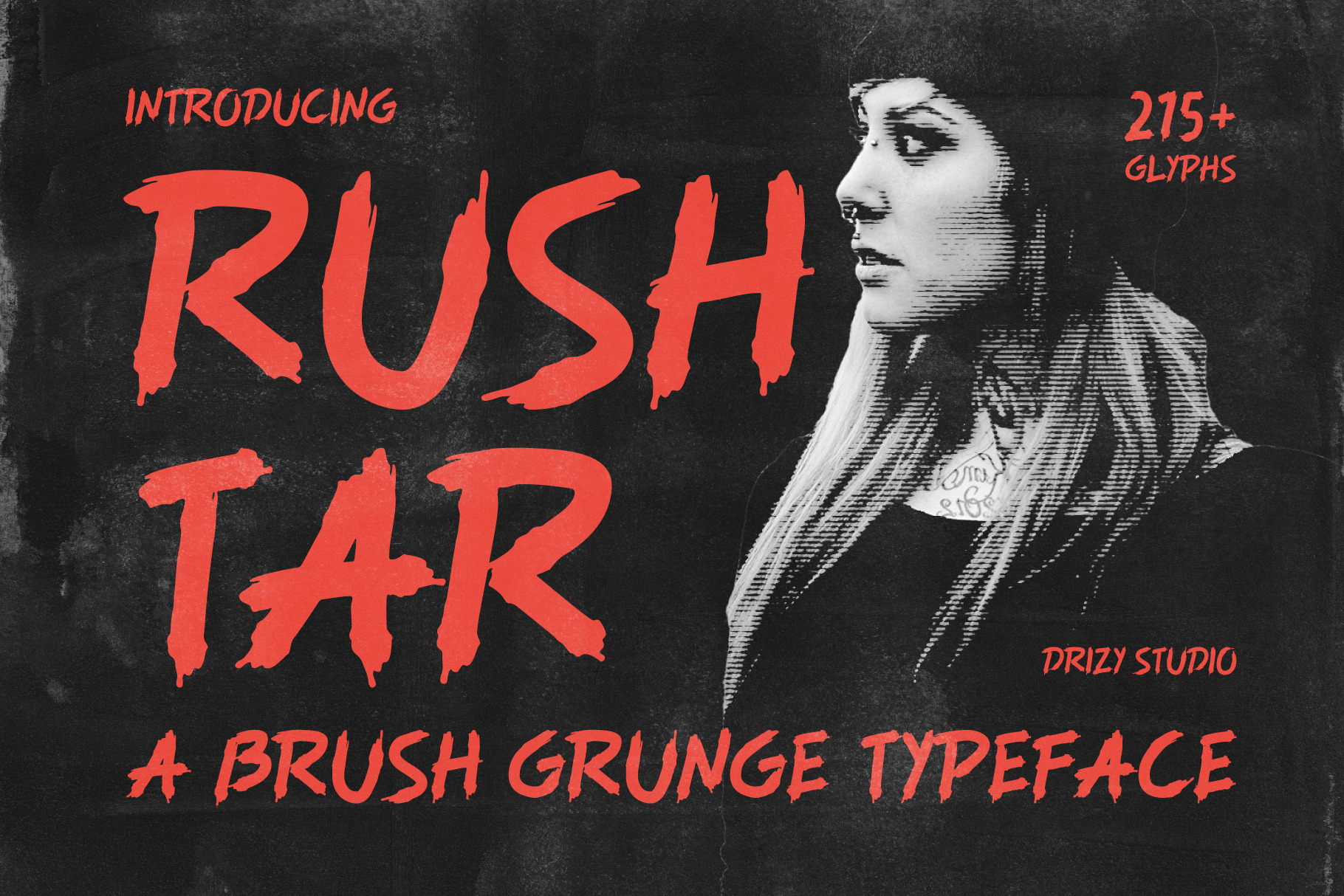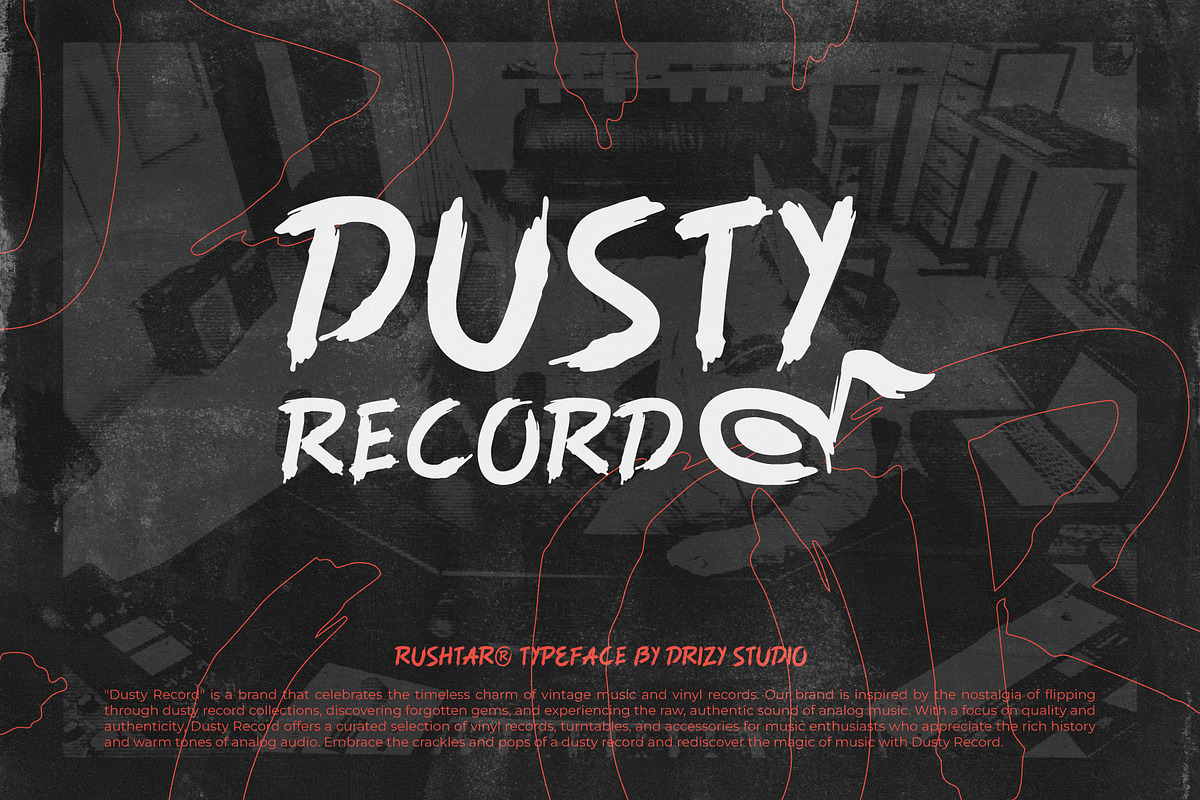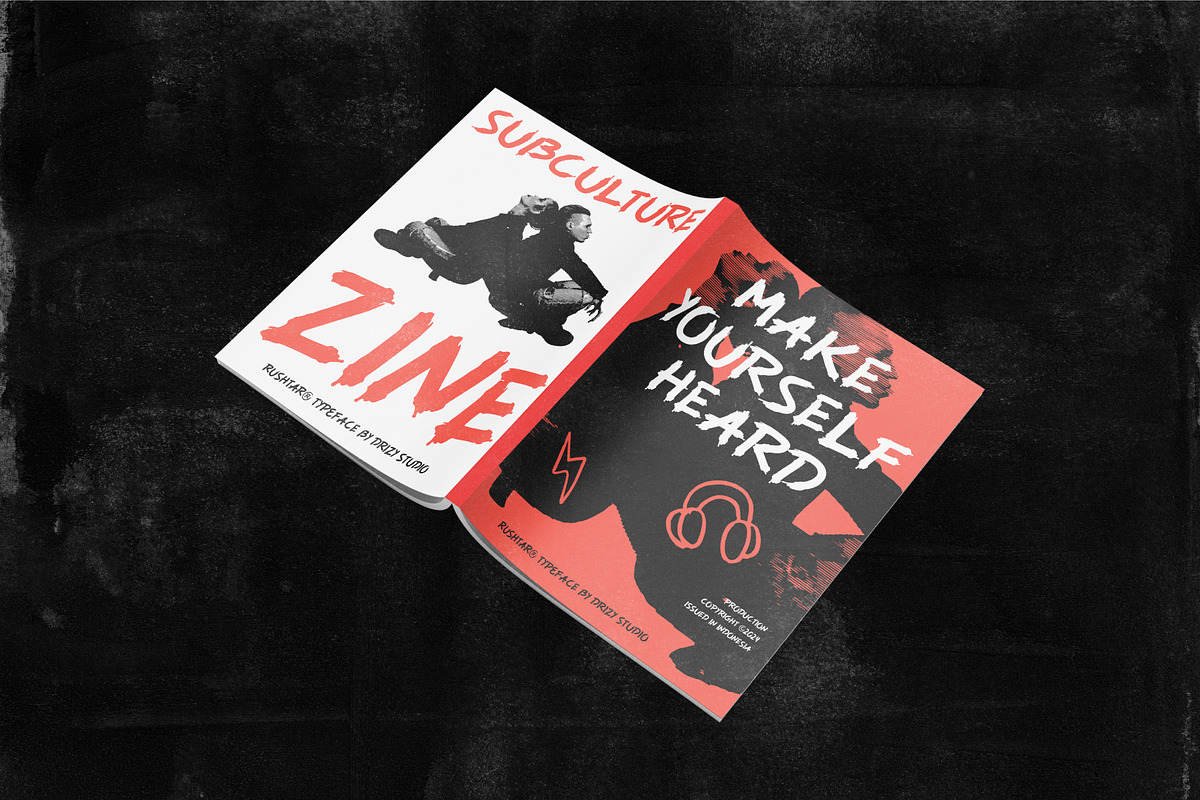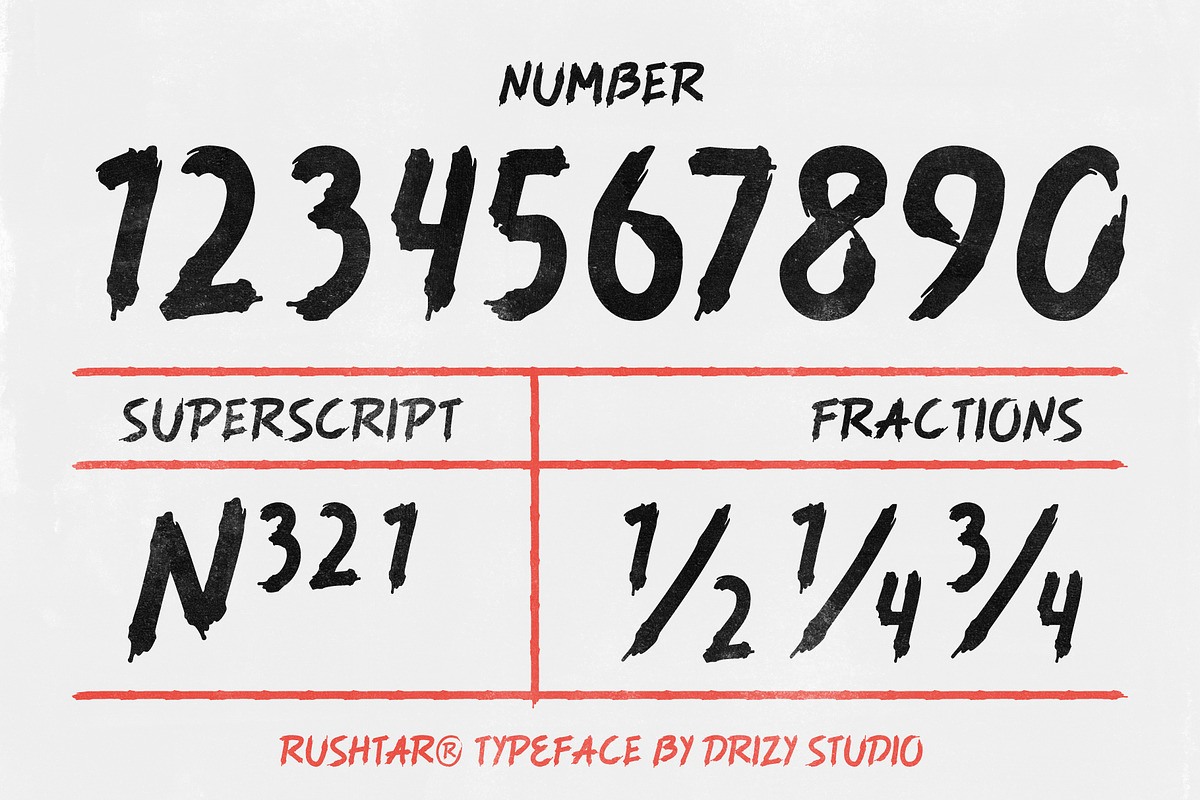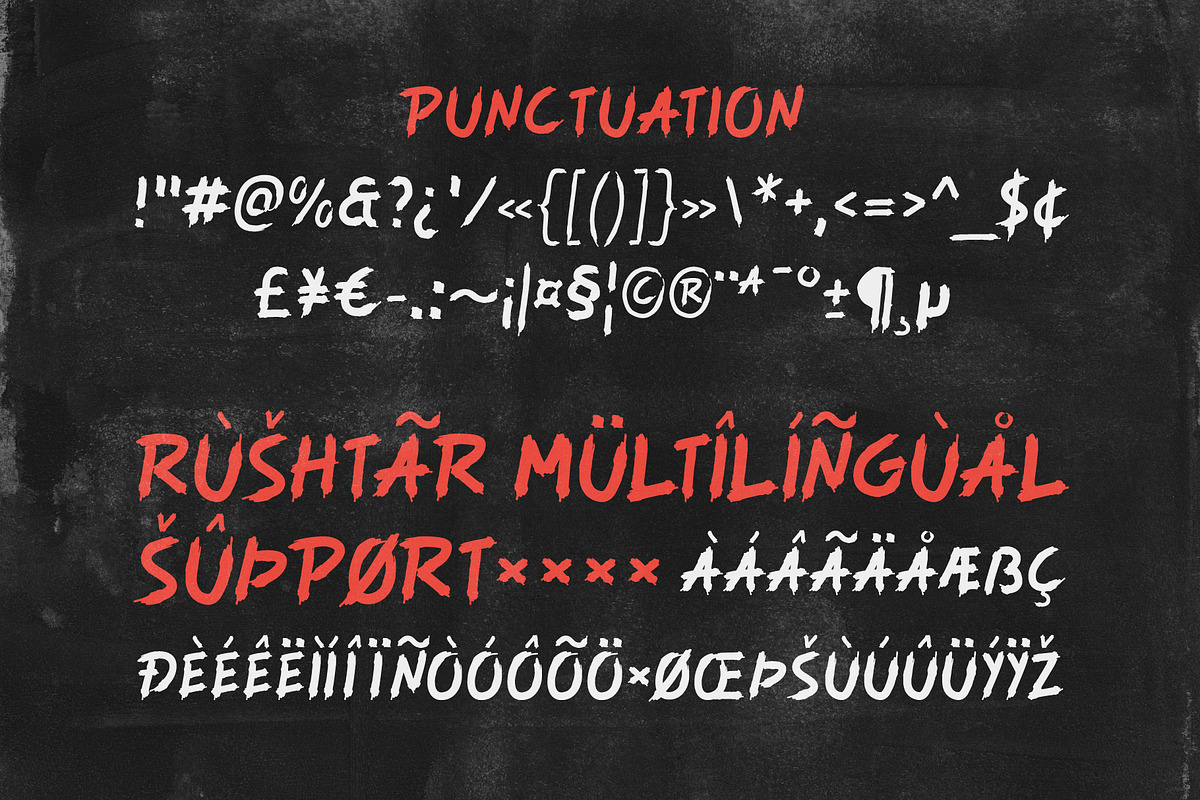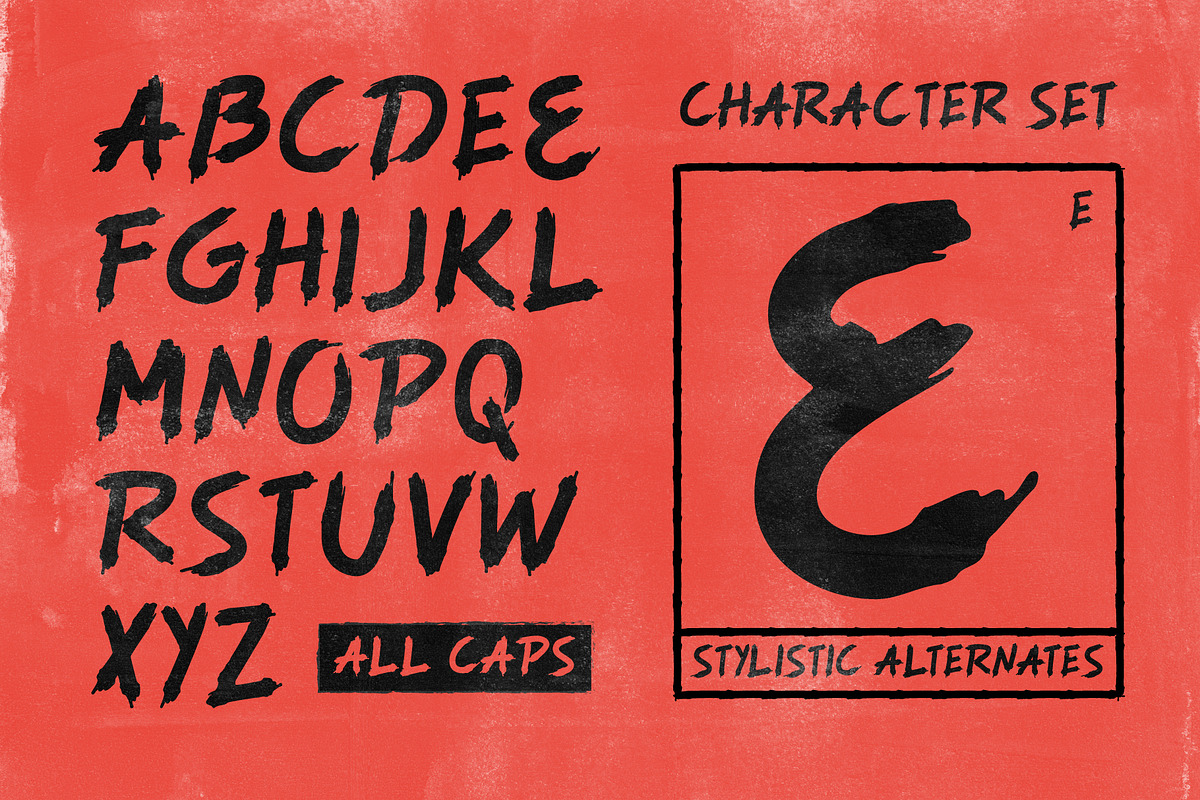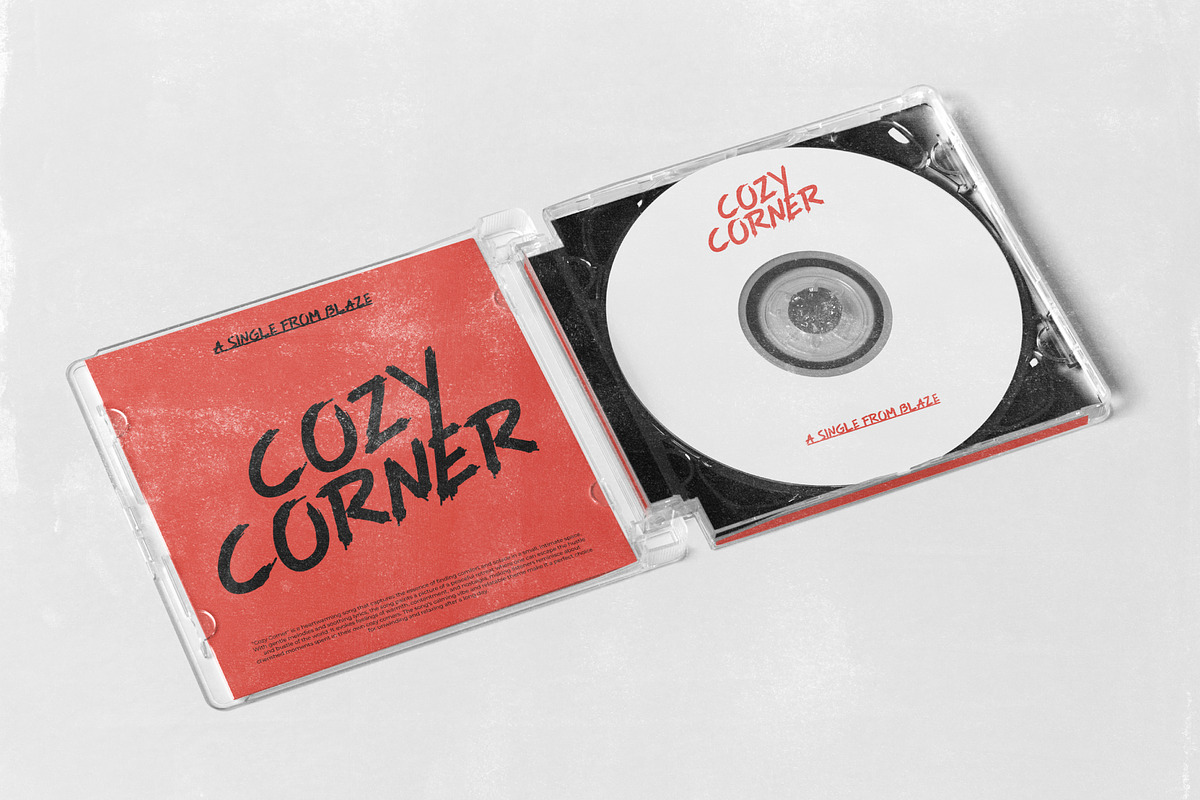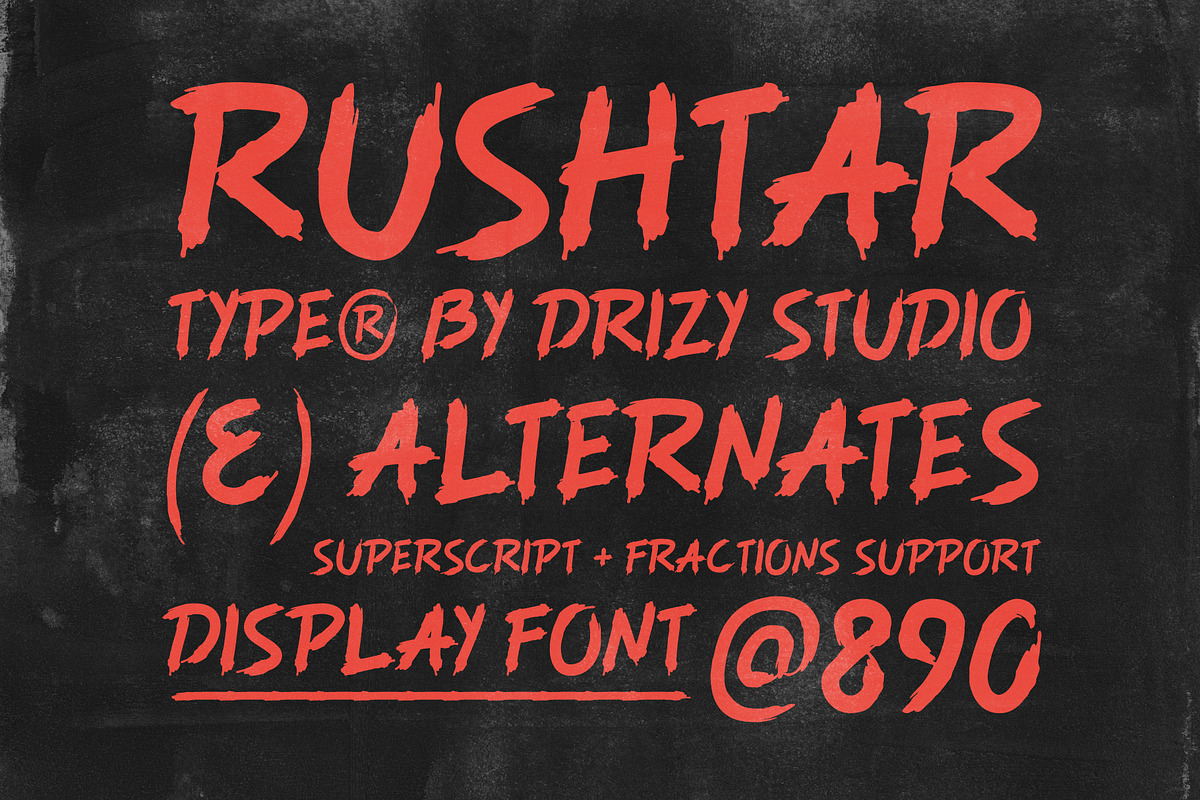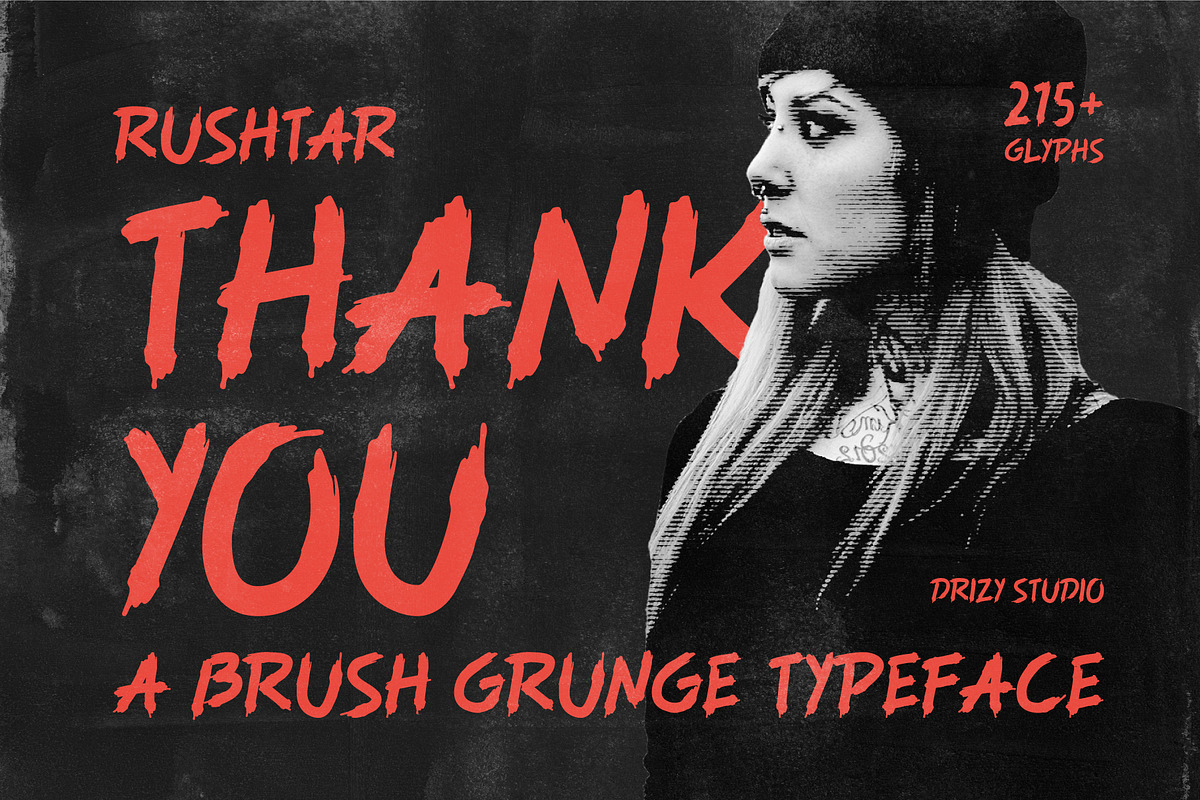
Rushtar - Brush Grunge Typeface
"Rushtar" emerges as a groundbreaking typeface, ingeniously melding the raw energy of brush grunge aesthetics with the intricate detail of grunge pointillism art. Crafted for the bold and the imaginative, this font dances between chaos and precision, embodying a rebellious spirit wrapped in sophistication.
Rushtar features: Character Set Punctuation & Numbers Multilingual